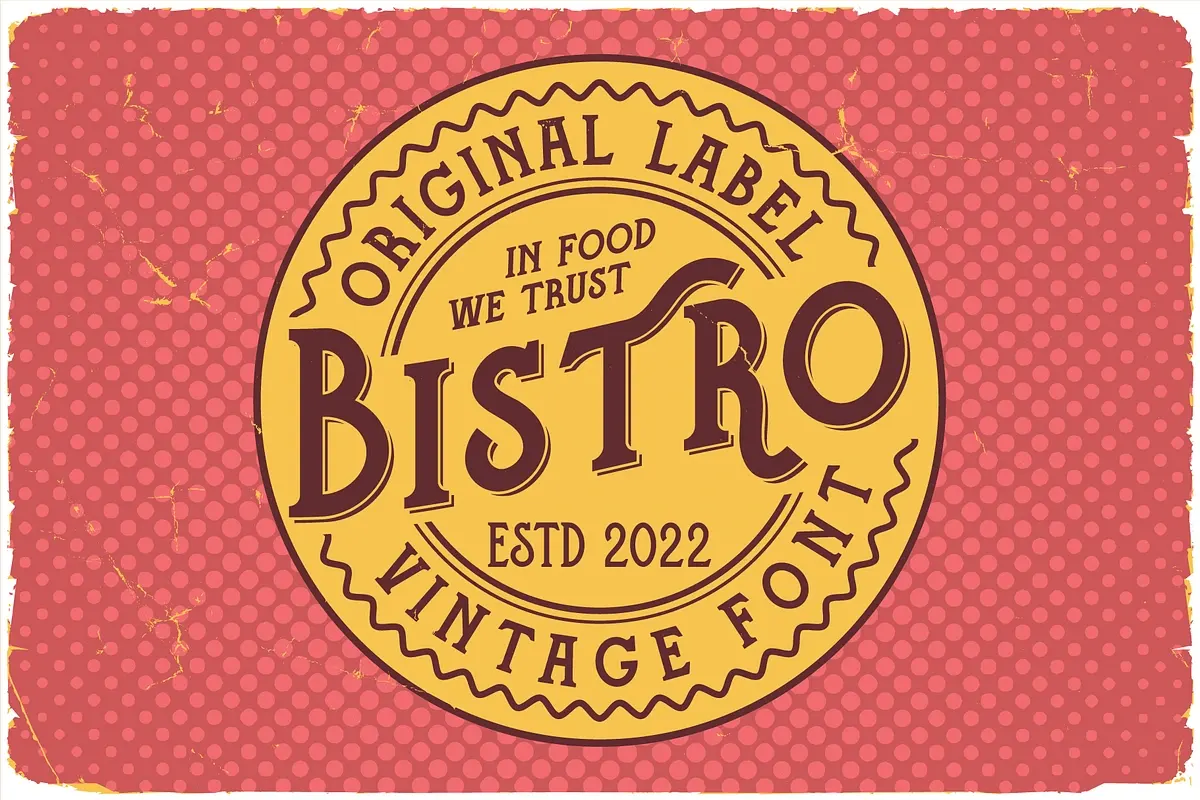
Bistro Font and Graphics Free Download is a charming and stylish typeface collection designed to bring the elegance and warmth of café culture to your designs. Featuring smooth, rounded letterforms and a friendly, inviting aesthetic, this font is perfect for restaurant menus, food branding, cafe signage, logo design, and social media graphics.
The set includes not only the font, but also matching graphic elements that allow you to create cohesive designs for your brand or project. Whether you're designing a quaint coffee shop logo, a rustic menu, or a fun promotional campaign, Bistro Font and Graphics provide all the tools to make your work stand out with style.